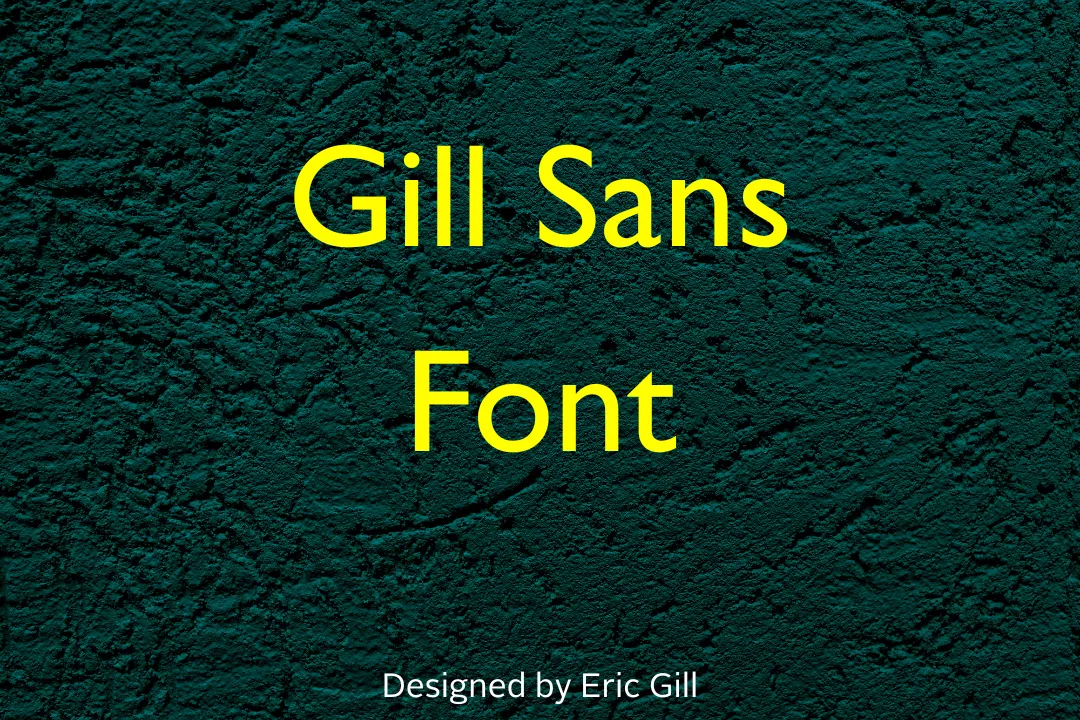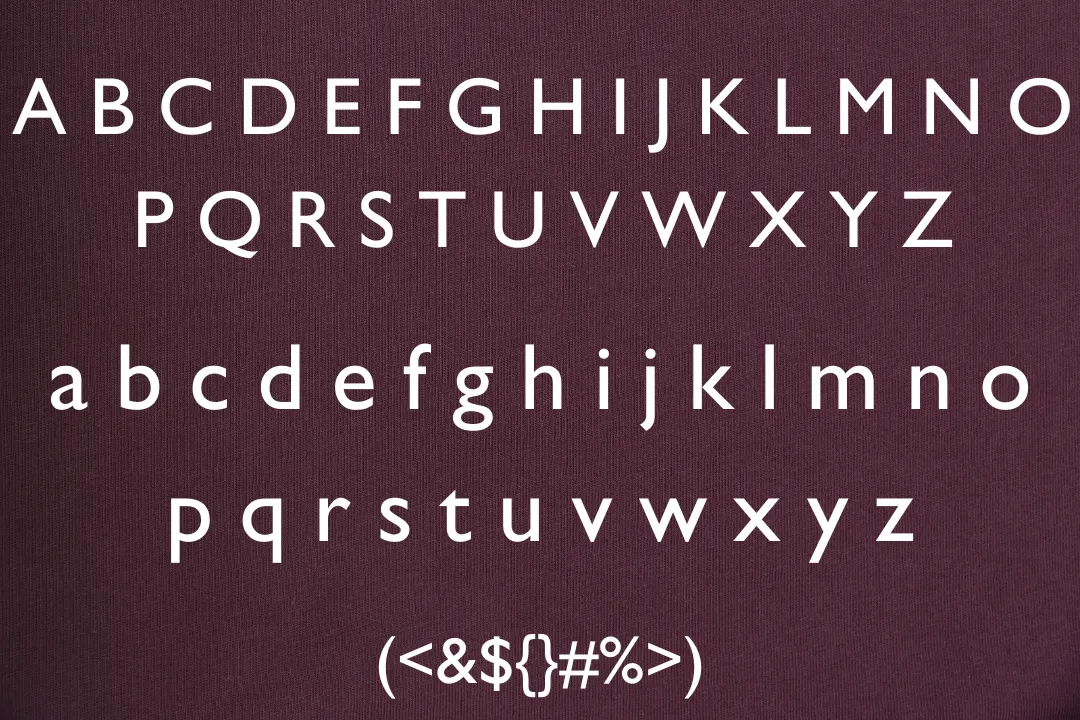
Gill Sans Font
About the Gill Sans Font
Gill Sans font is a humanist sans-serif typeface designed by Eric Gill in the 1920s and 1930s. This family is considered a classic and is often used in advertising, signage, and graphic design. The design is influenced by the calligraphy of Edward Johnston and the lettering of Eric Gill himself. This unique site provides a free full version with both OTF and TTF file formats.
It features a relatively lightweight, with a large x-height and a moderate level of stroke modulation. The design of the lowercase letters has a calligraphic, almost handwriting-like quality, while the uppercase letters are more geometric in form.
The regular and semibold styles of this family are very classic. It is effective for Adobe and Canva programs. The Gill Sans is available in a wide range of weights, from light to ultra bold, and is often used in headlines and display settings.
Uses of Gill Sans Font
This is a universal texture that can be used in a vast variety of contexts. This family is often used in advertising, signage, and graphic design, and can be found on posters, billboards, book covers, and in magazines and newspapers. This typography is also generally used in branding and corporate identity, as it is considered a classic and timeless design. This is a popular choice for headlines and display settings, due to its range of weights and the legibility of its design.
In addition, Gill Sans is often used in the design of websites and user interfaces, as its clean and modern design works well in digital contexts. This is also used in the design of logos, packaging and product design, and architectural lettering. It has been used in the designing of books, brochures, and other printed materials.
This typography is also used in educational materials and textbooks, as it is considered a legible and easy-to-read typeface for body text. It is also used in educational materials such as textbooks, workbooks, and study guides. This texture can be paired with many other fonts such as roboto font or Baskerville for a classic and timeless design.
By using Google Fonts, designers can ensure that the typeface will be rendered consistently across different devices and platforms. Overall, this texture is a versatile and classic typeface that can be used in a wide variety of contexts, from advertising and branding to digital design and educational materials.
Similars to Gill Sans Font
Several typefaces are similar to Gill Sans, which can be used as alternatives or in combination with it. Some of these include:
Frutiger Font
This stunning typeface was designed by Adrian Frutiger in the 1970s, Frutiger is a humanist sans-serif typeface that shares many similarities with Gill Sans, such as a large x-height and similar letterforms.
Avenir Font
The Avenir Font was designed by Adrian Frutiger in the 1980s, Avenir is another humanist sans-serif typeface that is similar to this one in its design and overall feel.
Optima Font:
The Optima Font was designed by Hermann Zapf in the 1950s, Optima is a humanist sans-serif typeface that is similar to Gill Sans in its calligraphic, almost handwriting-like quality.
Neuzeit font:
This attractive typeface was by Wilhelm Pischner in the 1950s, Neuzeit is a geometric sans-serif typeface that shares some similarities with Gill Sans in terms of stroke modulation and the design of the uppercase letters.
Futura Font:
It is an elegant font that was developed by Paul Renner in the 1920s, Futura is a geometric sans-serif typeface that shares some similarities with this font in terms of its clean and modern design.
Myriad Font:
Designed by Carol Twombly and Robert Slimbach in the 1990s, Myriad is a humanist sans-serif typeface that shares some similarities with Gill Sans in its design and overall feel.
Does Gill Sans work well in digital contexts?
Yes, this font works well in digital contexts, such as website and user interface design, and is a popular choice for digital typography due to its clean and modern design.
Are there different weights available for Gill Sans font?
Yes, it is available in a wide range of weights, from light to ultra-bold, allowing for a variety of uses and applications.